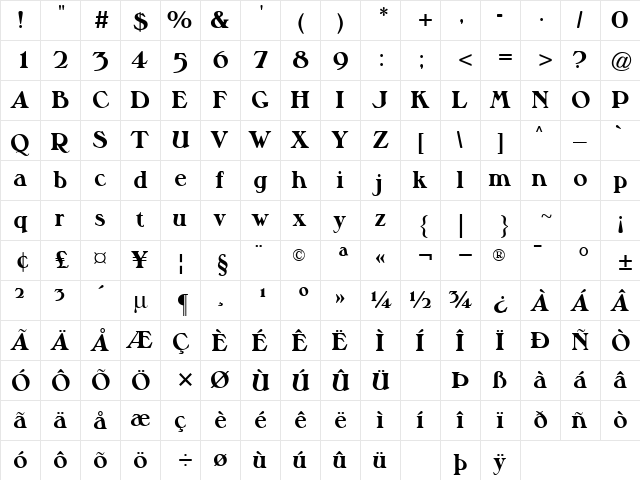
Musketeer Extra Bold Regular
Design Context for Musketeer Extra Bold Typeface
Musketeer Extra Bold is a composed and adaptable typeface that performs quietly and consistently across a wide range of design contexts. Its bold stroke weight gives it real presence on the page.